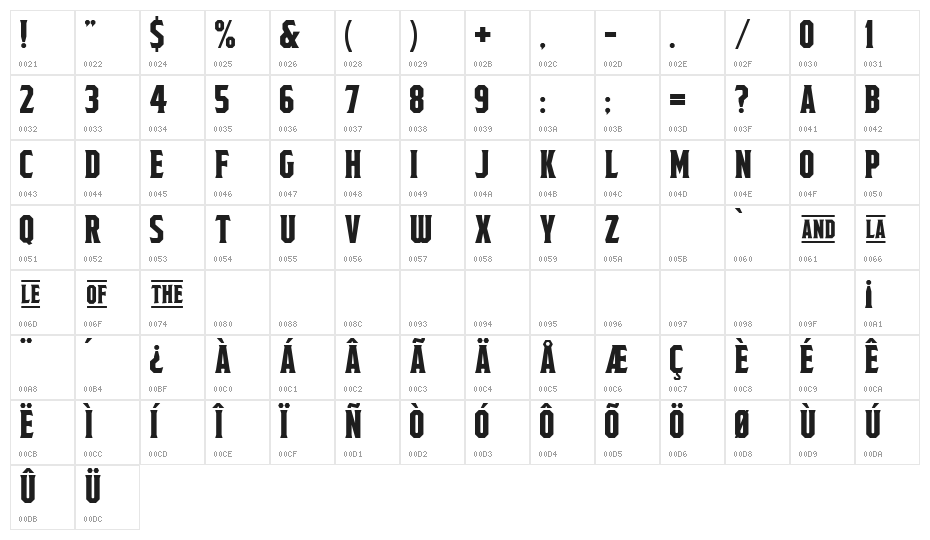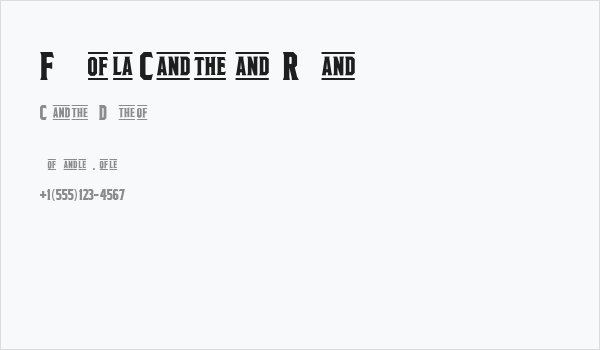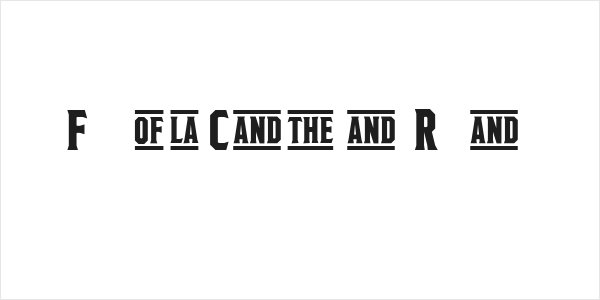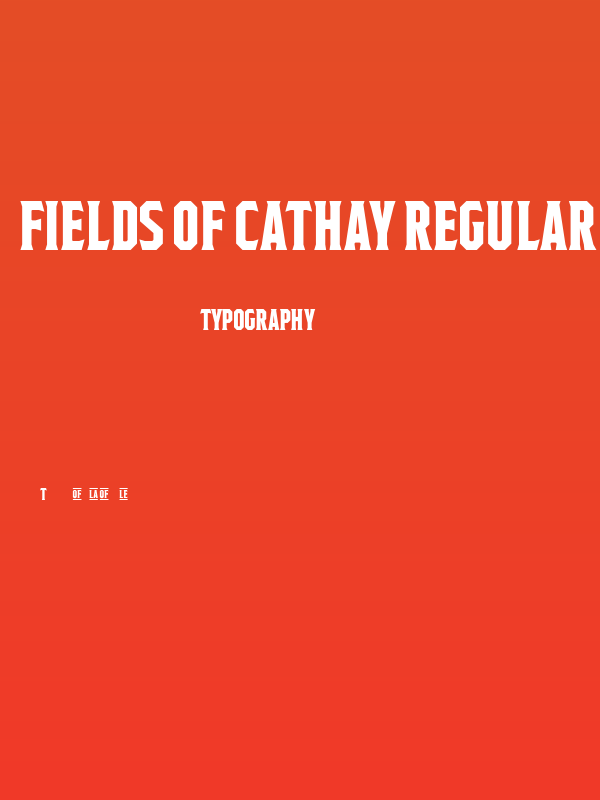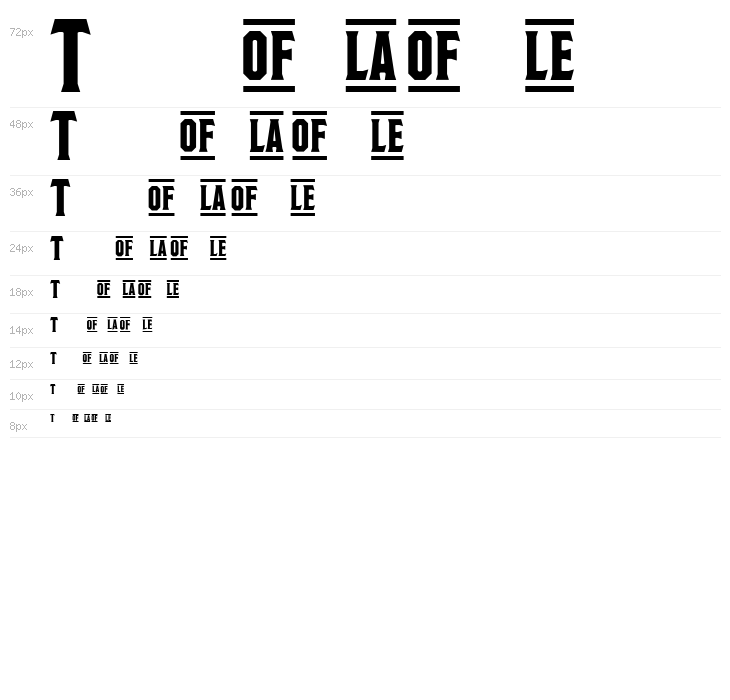
Fields of Cathay Regular Font
Fields of Cathay Regular Description
This font features a bold and striking design with a strong presence, characterized by its thick, block-like letters. The uppercase characters are particularly prominent, with sharp angles and a geometric style that conveys a sense of strength and stability. The numbers and special characters maintain this bold aesthetic, ensuring consistency across all glyphs. The font's design is reminiscent of vintage signage or posters, making it ideal for projects that require a touch of retro flair. Its boldness and clarity make it suitable for headlines and titles where impact is essential.
| Proposed Projects | Ideal for vintage-themed posters, signage, branding, and headlines that require a strong visual impact. |